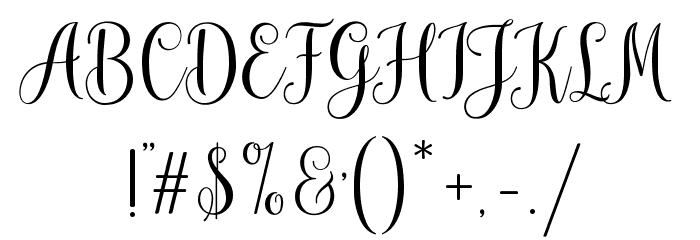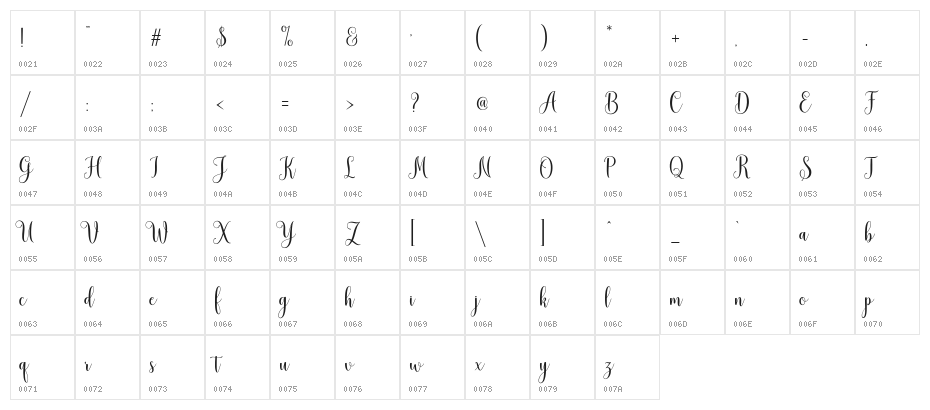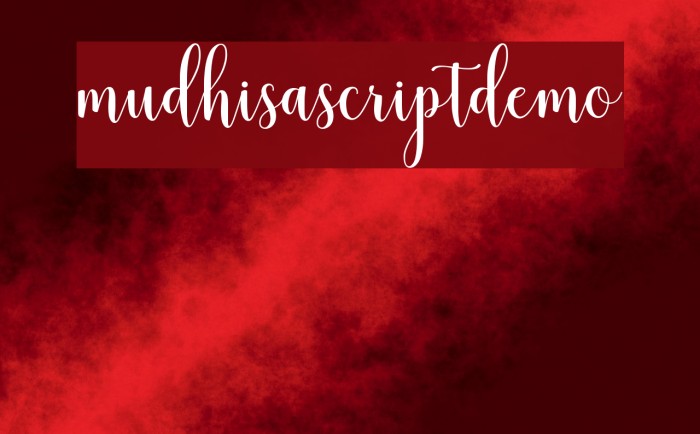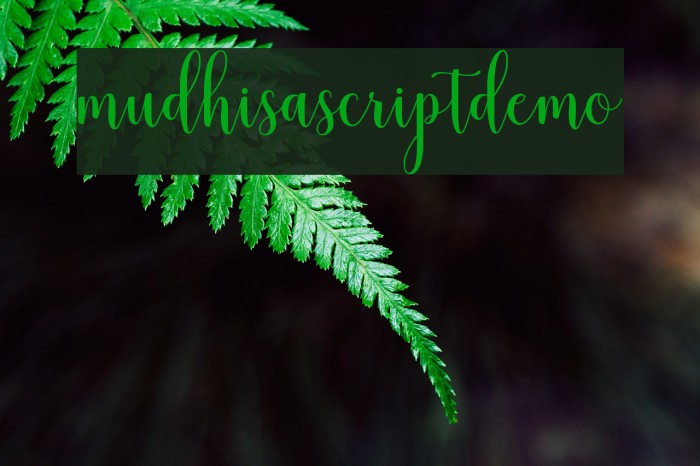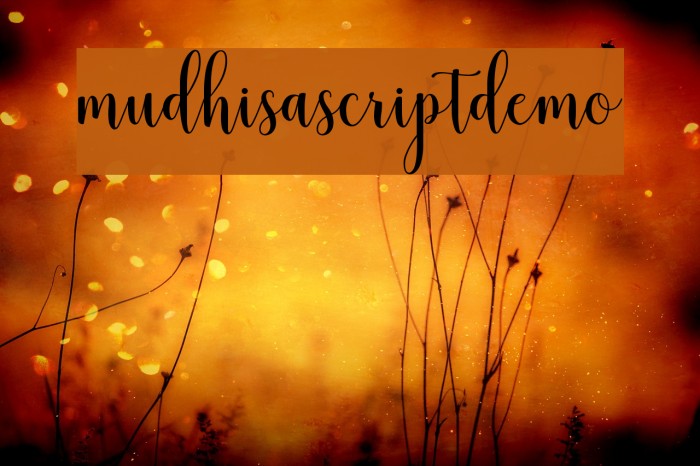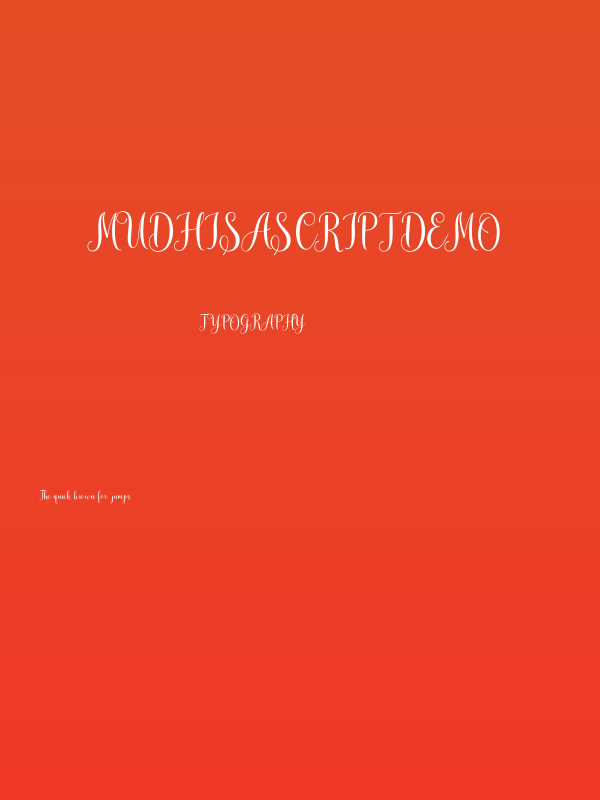
mudhisascriptdemo Font
mudhisascriptdemo Description
This elegant script font features flowing, interconnected letters with a calligraphic style. The uppercase letters are ornate, with sweeping curves and flourishes that add a touch of sophistication. The lowercase letters maintain a consistent flow, enhancing readability while preserving the decorative nature of the script. The numerals and special characters complement the overall design, maintaining the same fluidity and elegance. This font is perfect for projects that require a personal, artistic touch, such as invitations, greeting cards, and branding materials.
| Proposed Projects | Ideal for wedding invitations, greeting cards, logos, and branding materials. |